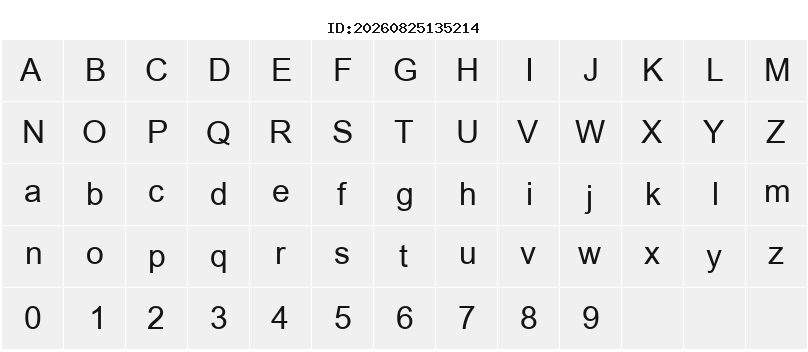
SUNA Arial Preview
• Font Name: SUNA Arial
• Full Font Name: SUNA Arial
About SUNA Arial.ttf
SUNA Arial.ttf is a modern, elegant sans-serif font designed for ultimate readability and visual harmony. Perfect for branding, headlines, web design, and print materials.